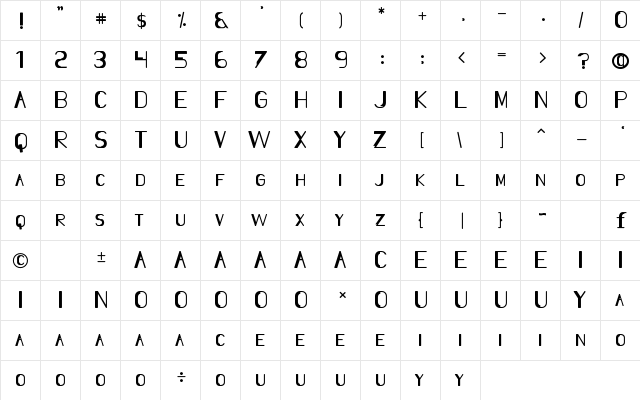
Slang Outfit Regular
| Foundry | Edric Studio |
| Designer | Renata & Sarah Suci P |
Design Context for Slang Outfit Typeface
Slang Outfit is a composed and adaptable typeface that performs quietly and consistently across a wide range of design contexts.